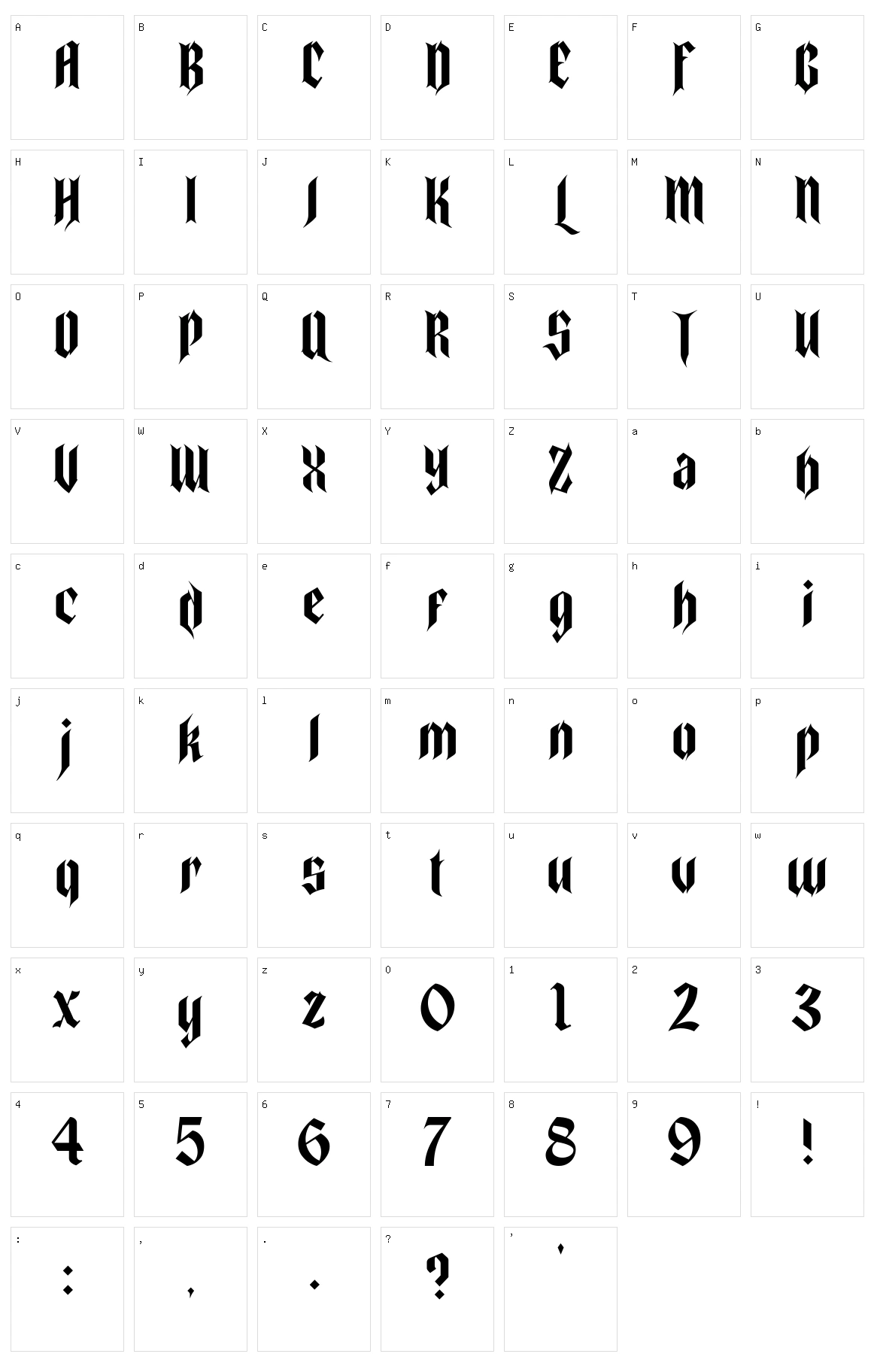
The free font Cattedrale is carefully designed by Creative Media Lab, showcasing a thoughtful balance of creativity and usability and belongs to the Gothic font family. When you download the ZIP file, it contains only 123.77 KB of font files, making it lightweight and quick to download. Please review the license details below to understand permitted usage and distribution rights. If license information is not available, we recommend using this font for personal projects only or contacting the author directly for commercial usage permissions.